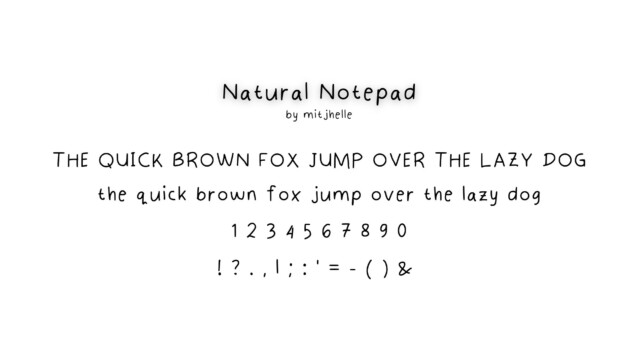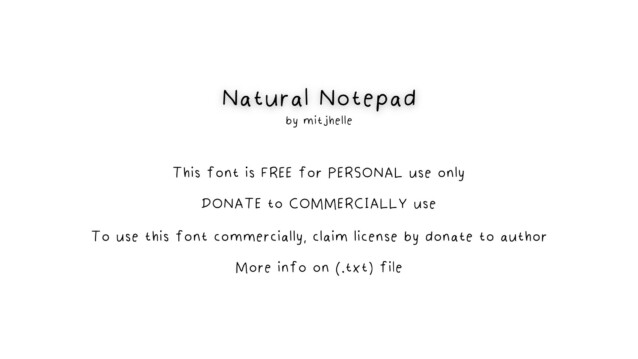
Natural Notepad Font
Natural Notepad Font is a playful, cute and friendly sans serif font. It would be awesome to your fun projects or diary planner, on wedding invitations, thank you cards, quotes, greeting cards, logos, posters, blogs, bag, T Shirt, clothing and other designs.